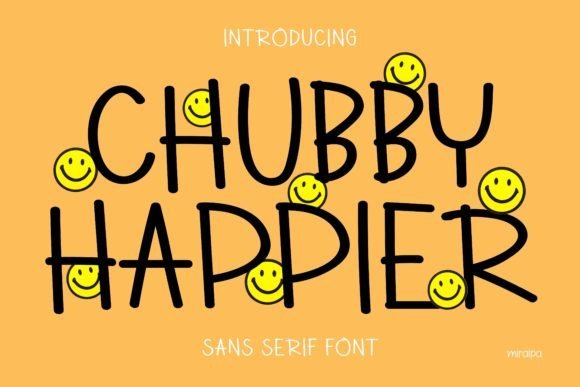
Discover the Joy of Typography with Chubby Happier Font
As designers, we’ve all been there – staring at a blank page, trying to bring our vision to life. But what if the right tool could make all the difference? For me, it was the moment I stumbled upon Chubby Happier Font. Its friendly and cute sans serif design instantly sparked a smile, and I knew I had to learn more.
Chubby Happier Font is more than just a font – it’s a creative partner that can elevate your projects and leave a lasting impression. Whether you’re working on a children’s book, a social media campaign, or a brand identity, this font has the potential to bring your ideas to life. With its versatility and charm, Chubby Happier Font is a valuable addition to any designer’s library.
Key Features of Chubby Happier Font
- Font Family: Chubby Happier is a sans-serif font family designed to convey a sense of approachability and friendliness.
- Unique Characteristics: Chubby Happier features a unique, rounded design with subtle curves, giving it a friendly and approachable feel.
Chubby Happier Font Review
Overall, I think Chubby Happier Font is a unique and quirky addition to any designer’s toolkit. Here are some of the things that stand out to me: ✨
- Expressive curves: The font’s rounded edges and playful shapes make it perfect for adding a touch of whimsy to your designs.
- Variety of weights: With multiple weights and styles available, you can create a cohesive look across your project.
- Craftsmanship: The font is well-crafted and seems to be designed with love and care.
However, there are a few things that give me pause: ⚠️
- Limited legibility: At smaller font sizes, the letters can become difficult to read, especially for those with visual impairments.
- Not ideal for body text: While it’s great for headings and titles, I wouldn’t recommend using it for large blocks of text.
- Some letters are a bit too chunky: While the font’s curves are charming, some letters feel a bit too bold and overpowering.
Overall, I think Chubby Happier Font is a great choice for designers who want to add a bit of personality to their projects. Just be mindful of its limitations, and use it sparingly to create a visually interesting design.
The Chubby Happier Font is perfect for creating playful and whimsical designs. Here are some tips and common use cases:
- Use the Chubby Happier Font for headings and titles to add a touch of personality to your design.
- Combine the Chubby Happier Font with other playful fonts to create a unique and eye-catching design.
- Use the Chubby Happier Font for social media graphics, flyers, and other promotional materials.